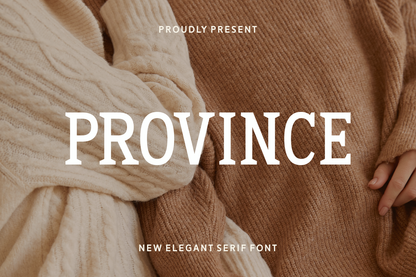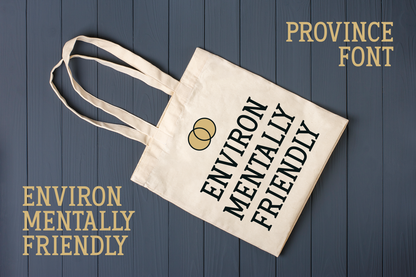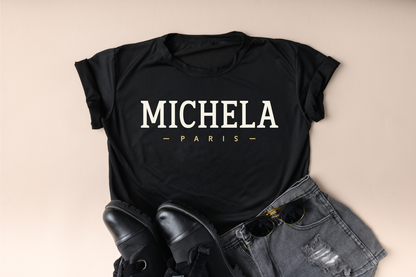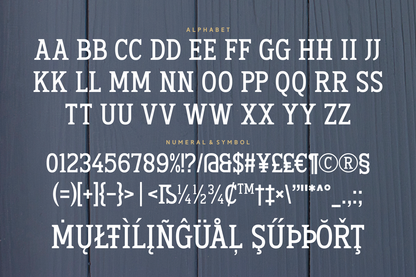
Province is a clean and graceful serif font with classic proportions and a cozy charm. Its refined strokes and subtle contrast make it versatile for both print and digital applications. Whether you're designing a lifestyle blog, feminine branding, or a warm editorial layout, Province delivers quiet sophistication with just the right amount of personality.